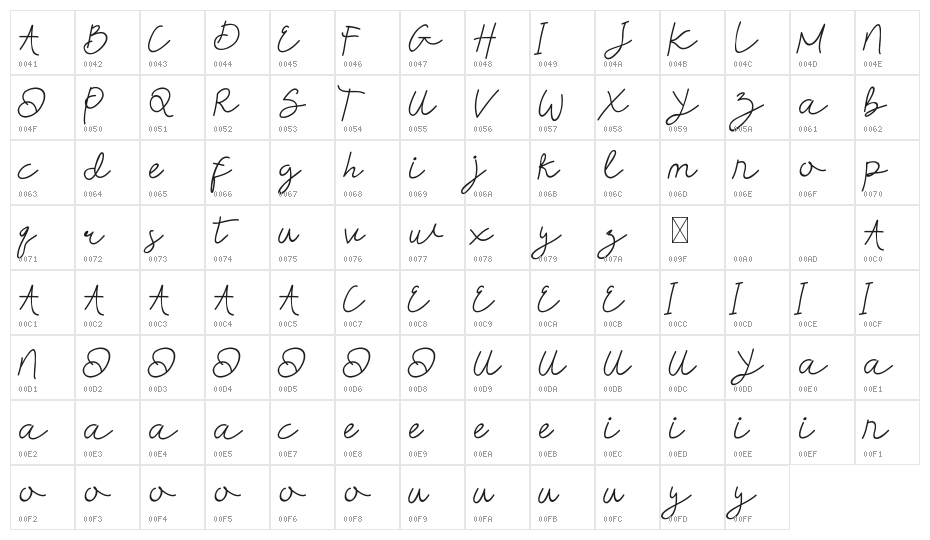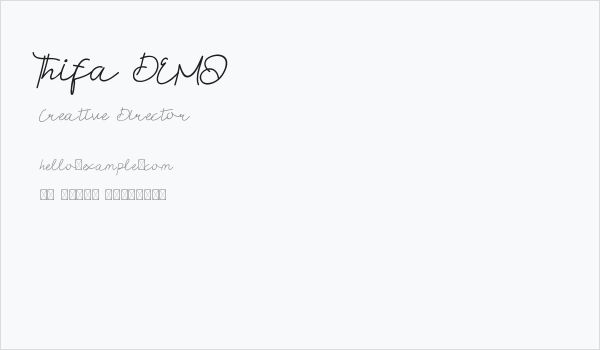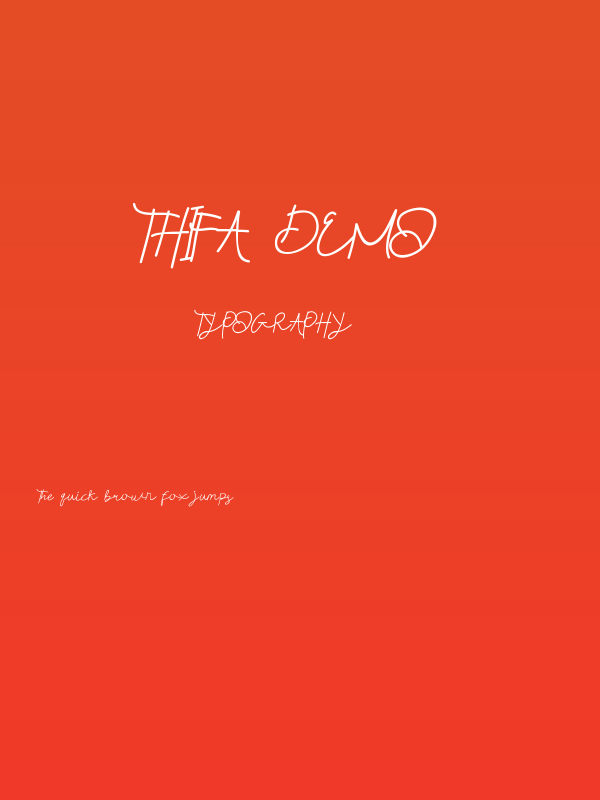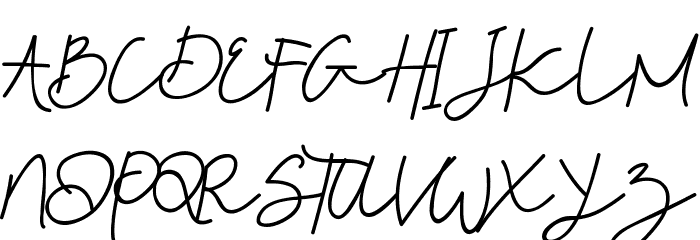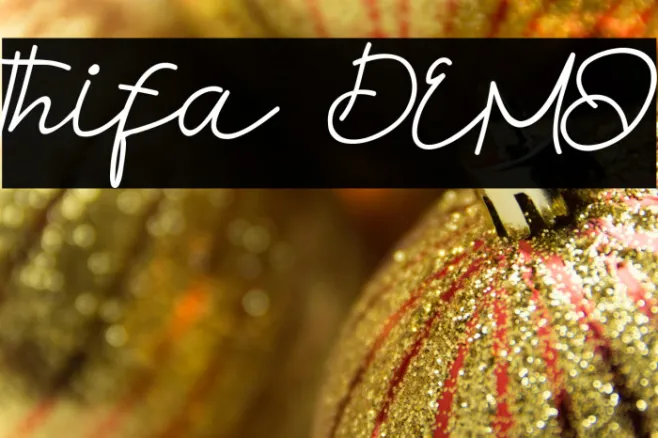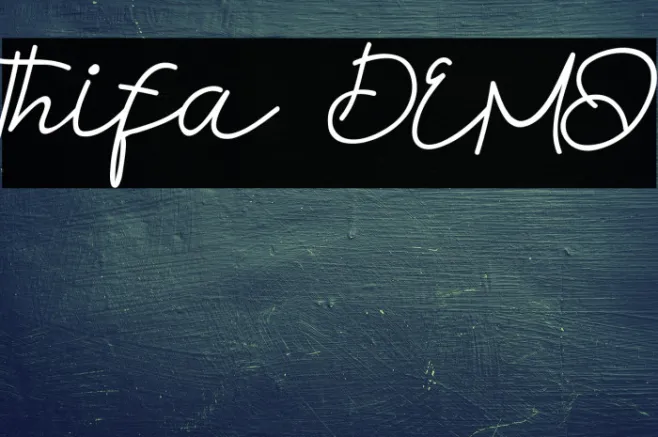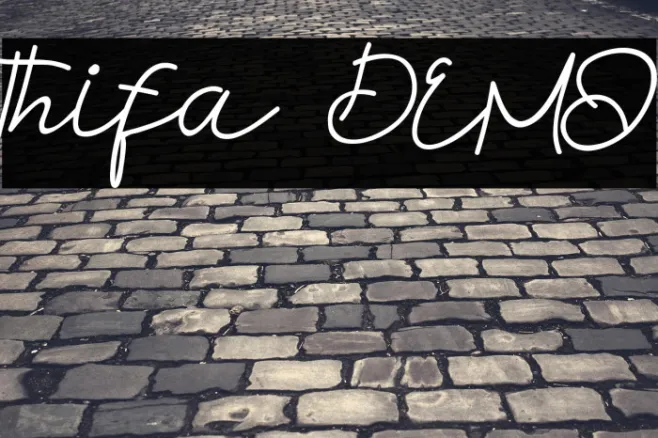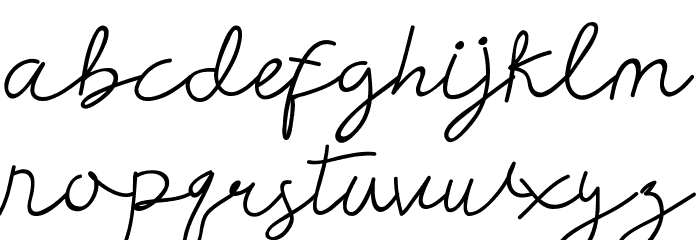
Thifa DEMO Font
Thifa DEMO Description
This font features a fluid, handwritten style with a modern twist. The characters are connected in a cursive manner, giving it an elegant and personal touch. The strokes are smooth and consistent, with a slight slant that adds to its dynamic appearance. The uppercase letters are bold and prominent, while the lowercase letters maintain a delicate balance, enhancing readability. The numbers and special characters are designed to match the overall aesthetic, ensuring a cohesive look across all text elements. This font is perfect for projects that require a personal, yet professional feel.